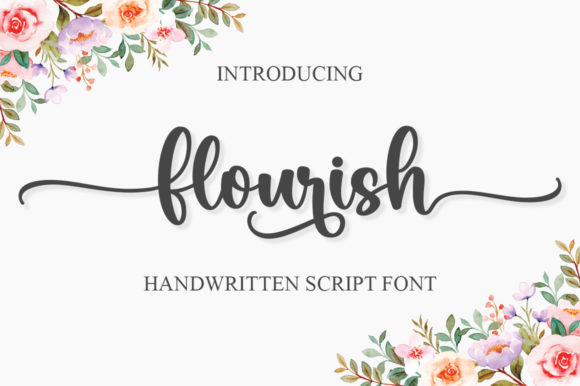
About Flourish Font
“Flourish” is a font that embodies distinction and grace with its elegant script style. Its unique and captivating design exudes a sense of charm that can elevate your design projects to new heights. The font’s intricate details and flowing lines make it a perfect choice for creating beautiful and eye-catching designs that leave a lasting impression.
The name “Flourish” aptly describes the font’s ornate and decorative nature. Its beautifully crafted letterforms are characterized by delicate swashes and stylish curves, giving your text a sense of movement and sophistication. Each character has been meticulously designed to convey a sense of refinement and artistic flair.
Whether you’re working on wedding invitations, branding materials, logos, quotes, or any other type of visual content, “Flourish” has the versatility to shine in various contexts. Its ability to add a touch of elegance and uniqueness to your designs sets it apart from more traditional fonts.
The font’s PUA encoding allows for easy access to its glyphs and swashes, making it a breeze to create custom and intricate typography. This feature enhances your creative flexibility, enabling you to experiment with different stylistic variations and design elements.
“Flourish” is a font that can truly bring your designs to life. Its ravishing style captures attention and draws viewers in, making it an excellent choice for creating stunning and impactful visuals. Whether you’re aiming for a classic and timeless aesthetic or a modern and artistic vibe, “Flourish” has the versatility and elegance to help you achieve your desired look.
Incorporating “Flourish” into your design projects can add a touch of luxury and sophistication that resonates with your audience. Its distinct and graceful script style is sure to make your designs stand out and leave a lasting impression.